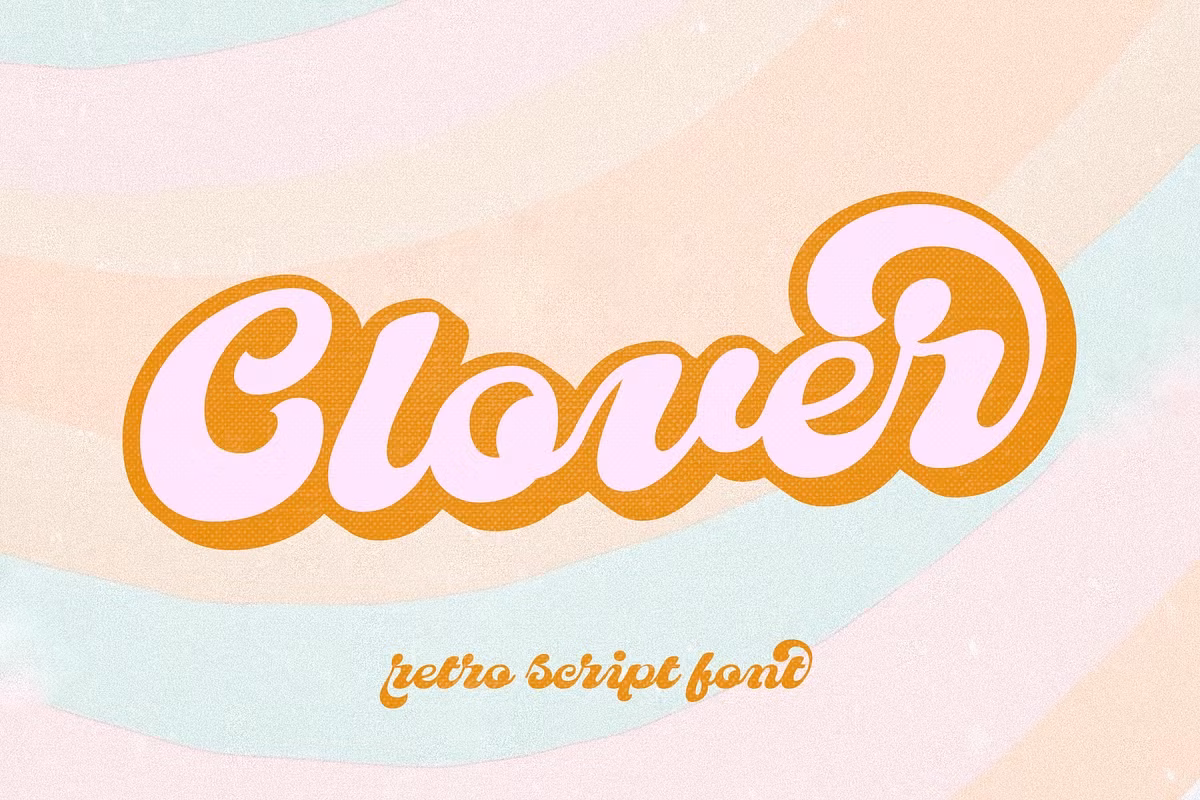
Bring a nostalgic vibe to your designs with Clover | Retro Script Font Free Download. This vibrant, retro-inspired script font features smooth, flowing letterforms with a playful, 70s-inspired style, making it perfect for vintage branding, t-shirt designs, posters, and any project that requires a bold, fun touch.
Clover combines classic script typography with modern readability, offering a mix of charm and elegance. It includes uppercase and lowercase letters, numerals, punctuation, and multilingual support, giving you the flexibility to experiment with various layouts and creative ideas.